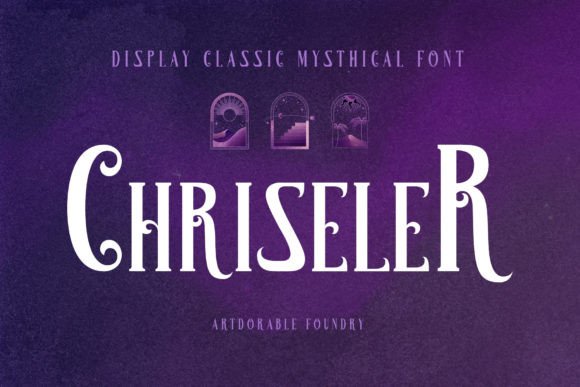
**Introducing Chiseler Font: The Ultimate Display Masterpiece**
Step into a world of captivating typography with Chiseler Font, a display font crafted with unparalleled style and elegance. Created by the renowned Artdorable, this font is a masterpiece designed to elevate every creative vision.
**Unleash Your Creative Potential**
With Chiseler Font, your imagination knows no bounds. Its meticulously crafted characters dance across the page, captivating the eyes and evoking emotions. Whether you're crafting stunning logos, eye-catching posters, or captivating social media graphics, this font empowers you to make a lasting impact.
**The Epitome of Display Excellence**
Chiseler Font reigns supreme as the ultimate choice for display typography. Its bold, commanding presence demands attention, making it the perfect font for headlines, banners, and any element that demands to be noticed. The font's sharp angles and precise lines exude a touch of sophistication that instantly elevates your designs.
**A Font for All Occasions**
Versatile and adaptable, Chiseler Font seamlessly complements any design aesthetic. From vintage-inspired projects to modern and contemporary creations, this font has the uncanny ability to blend seamlessly and enhance the overall impact. Whether you're designing for print or digital, Chiseler Font is guaranteed to make a statement.
**Why Choose Chiseler Font?**
* Its striking display qualities make it ideal for capturing attention.
* The elegant and stylish design adds a touch of sophistication to your creations.
* Its versatility allows it to adapt to any design style or theme.
* The high-quality craftsmanship ensures crisp and stunning visuals.
* The Artdorable heritage guarantees exceptional quality and creativity.
**Experience the Chiseler Difference**